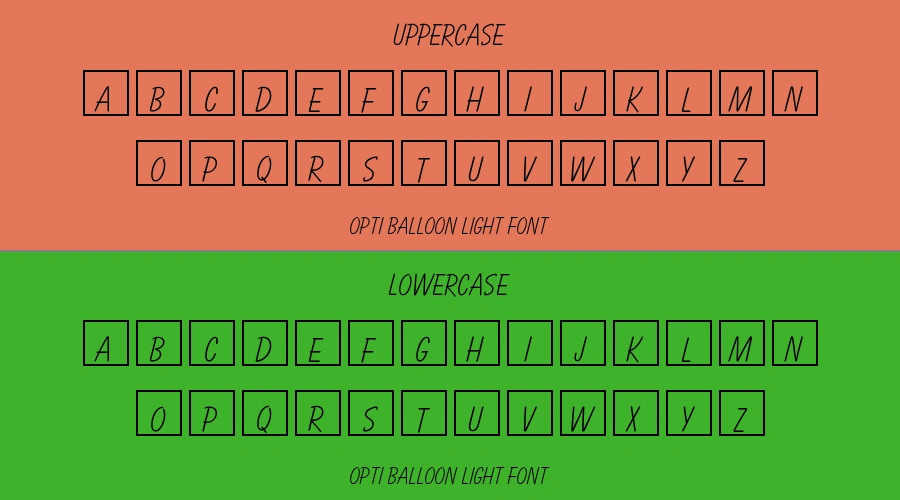
About OPTI Balloon Light Font
OPTI Balloon Light Font represents a sophisticated approach to type design, balancing bold expressions with production readiness. Perfect for social media content, this font family showcases impressive consistency and practical utility throughout its character set. Designers appreciate its versatility and reliability.
Designers will appreciate nuanced touches including concave curves and careful spacing, adding sophistication to any project. These features become apparent in promotional materials, where detail preservation matters most. The careful treatment of bowl shape and lifestyle alignment ensures optimal performance.